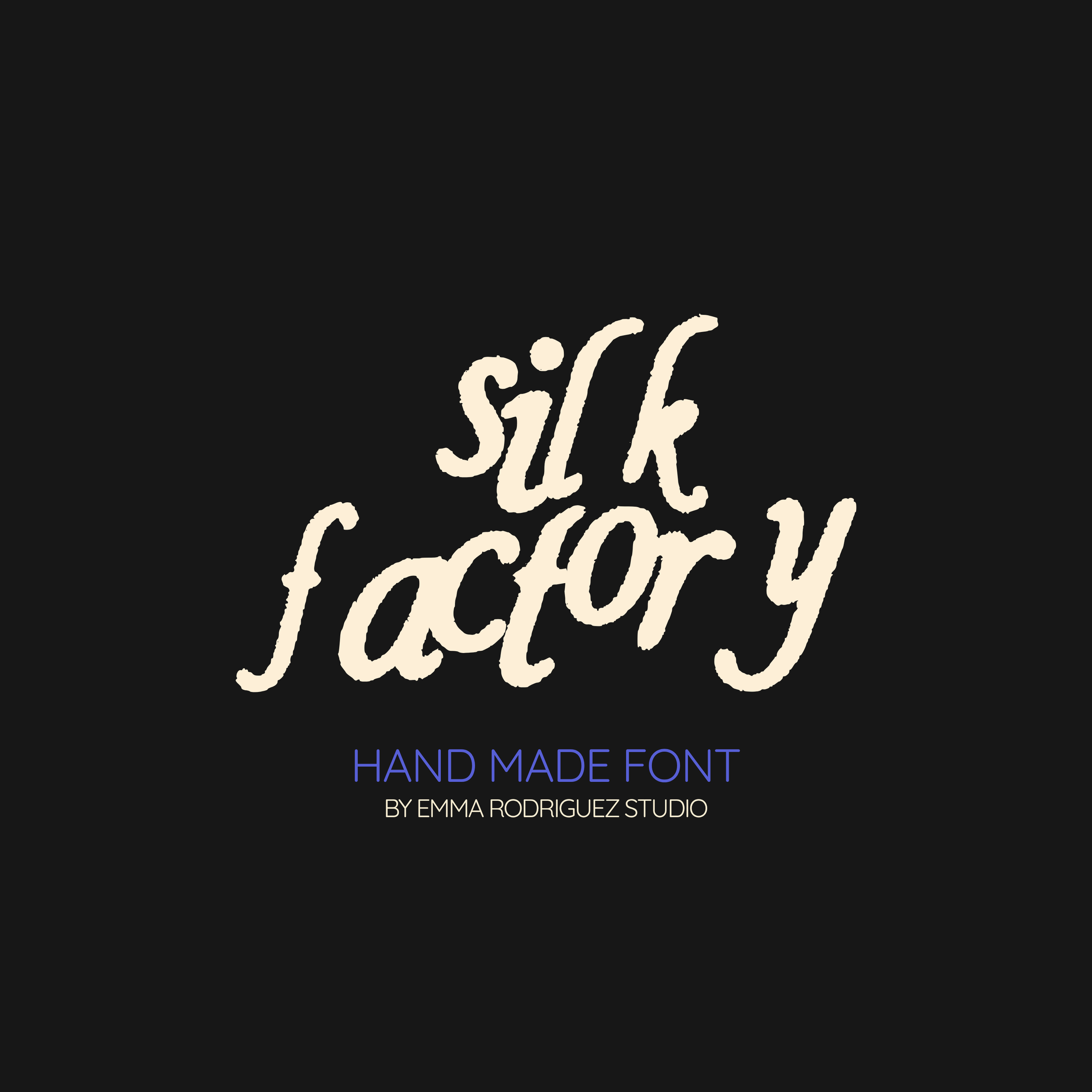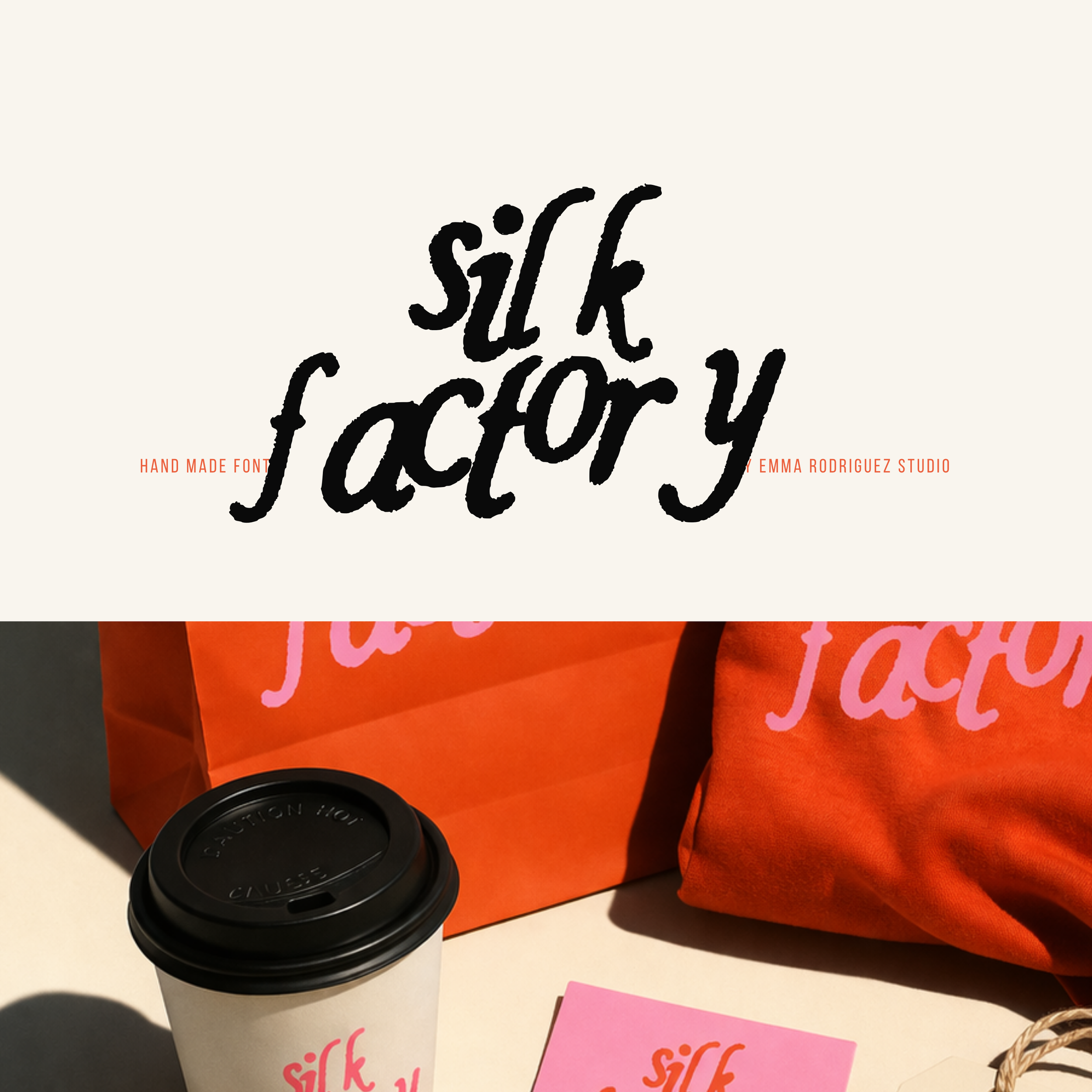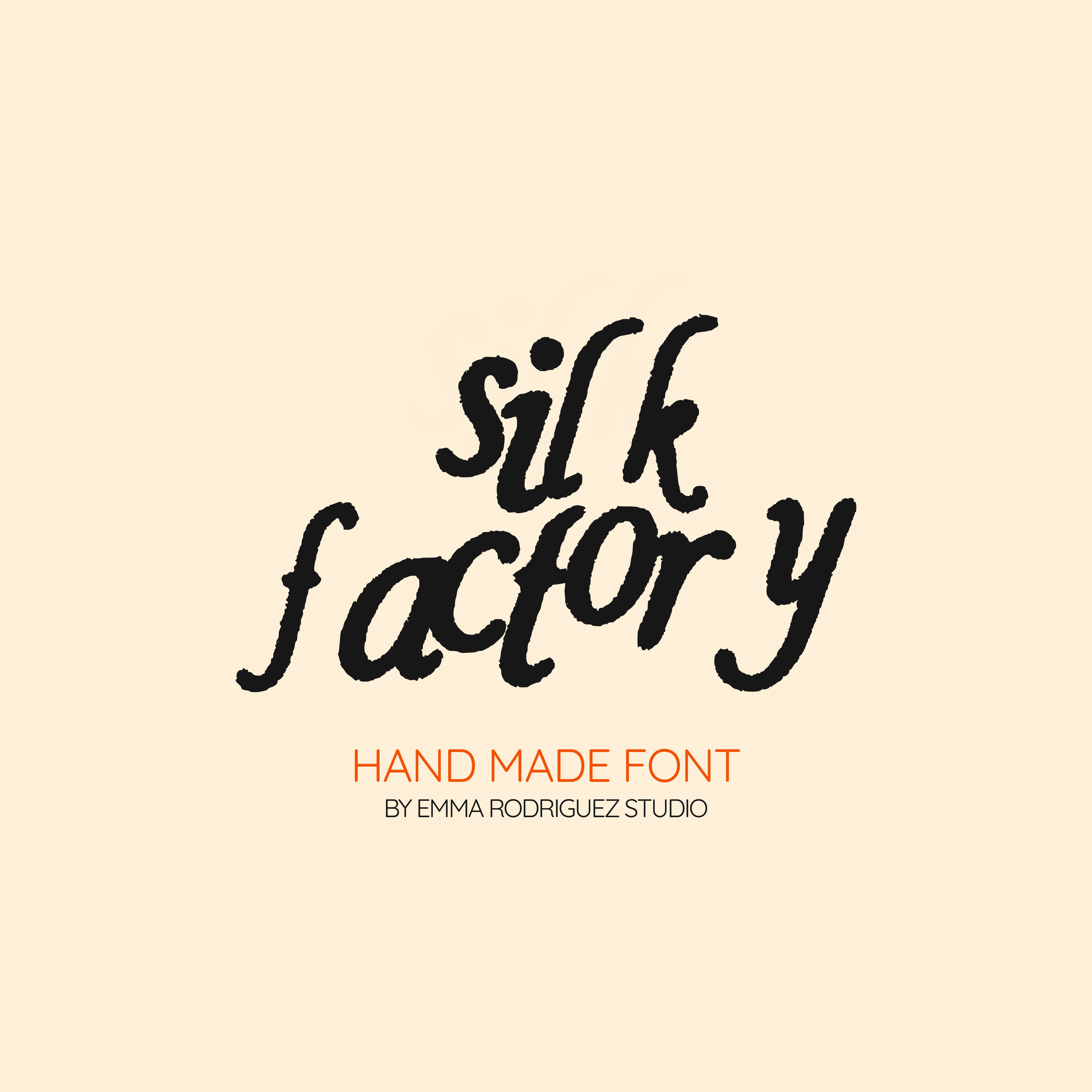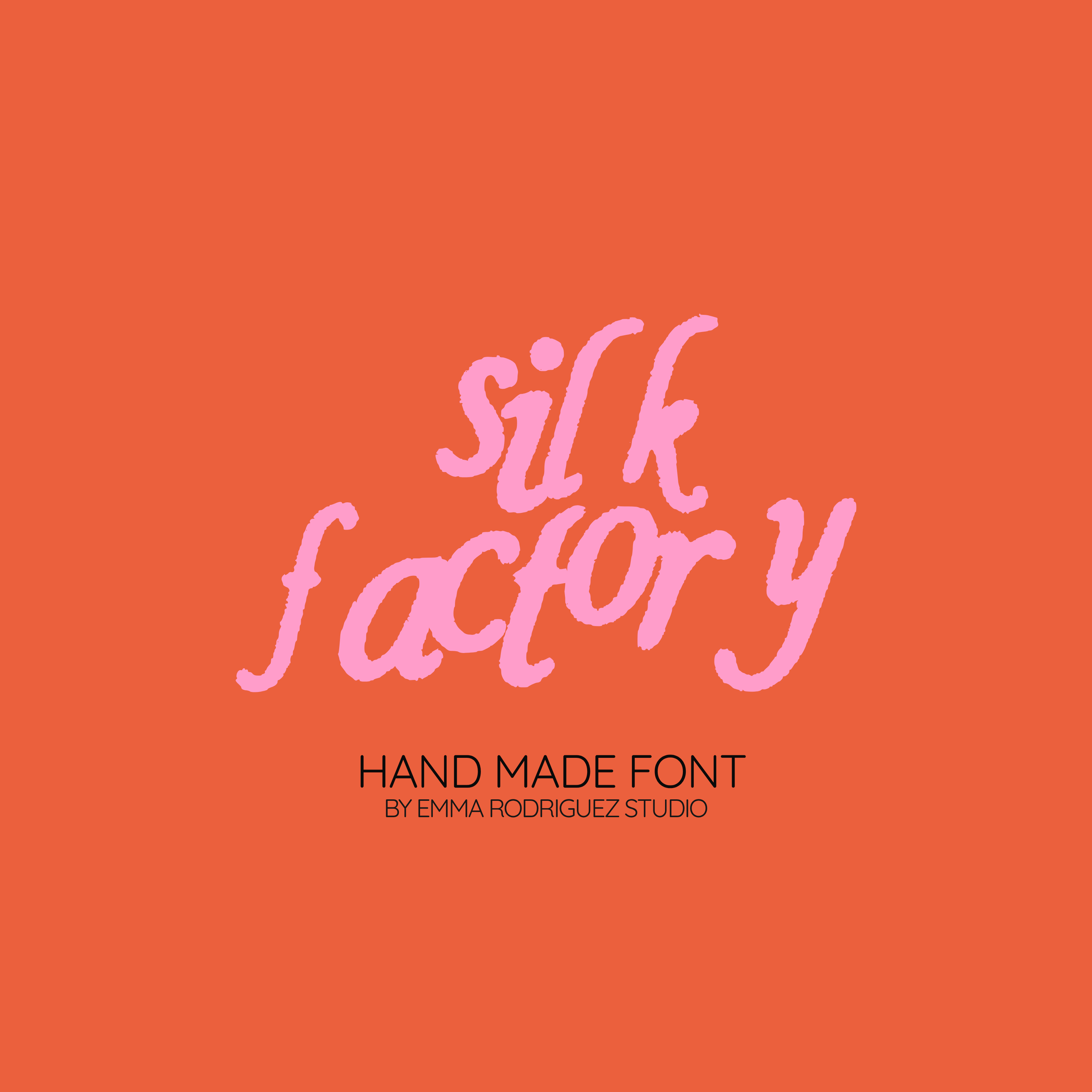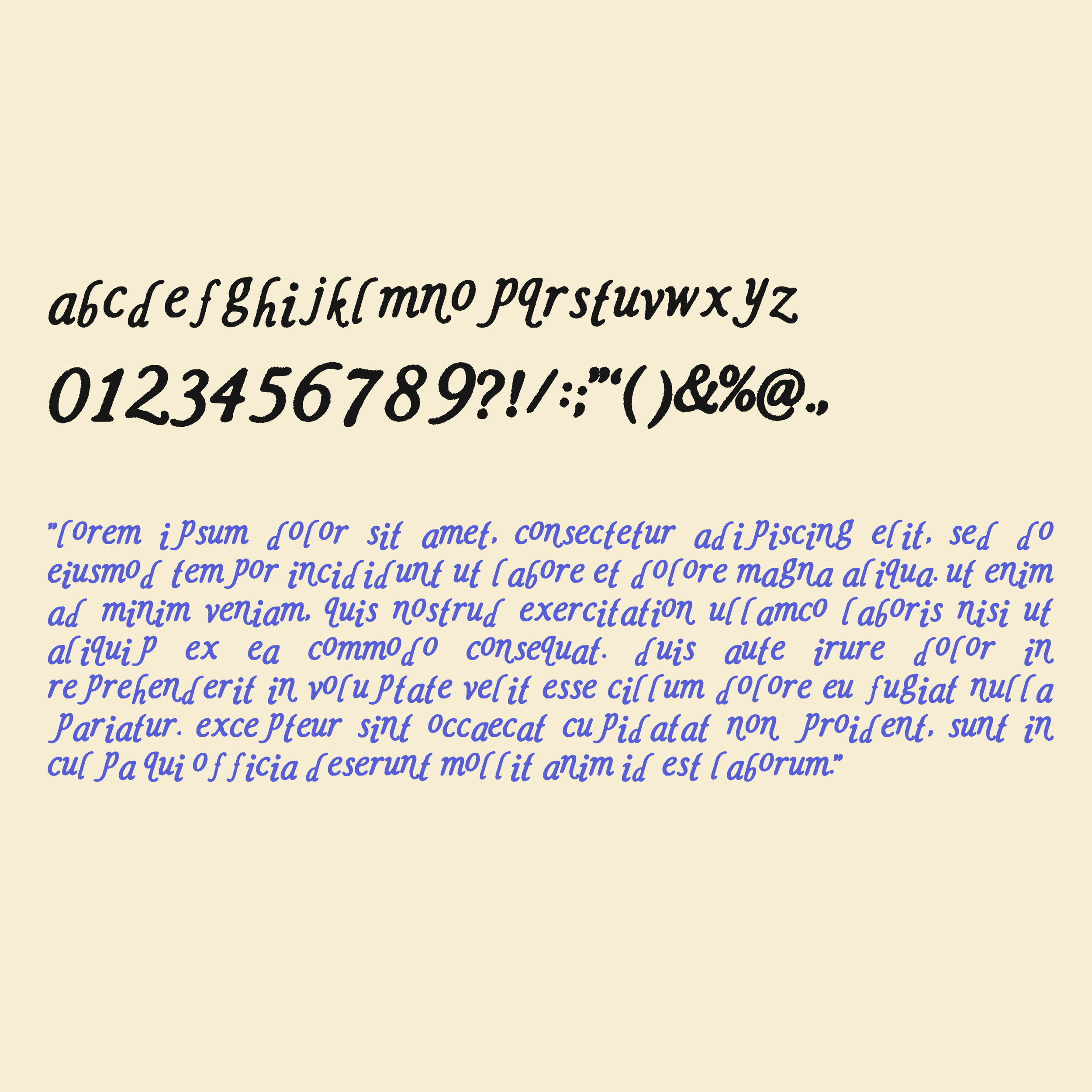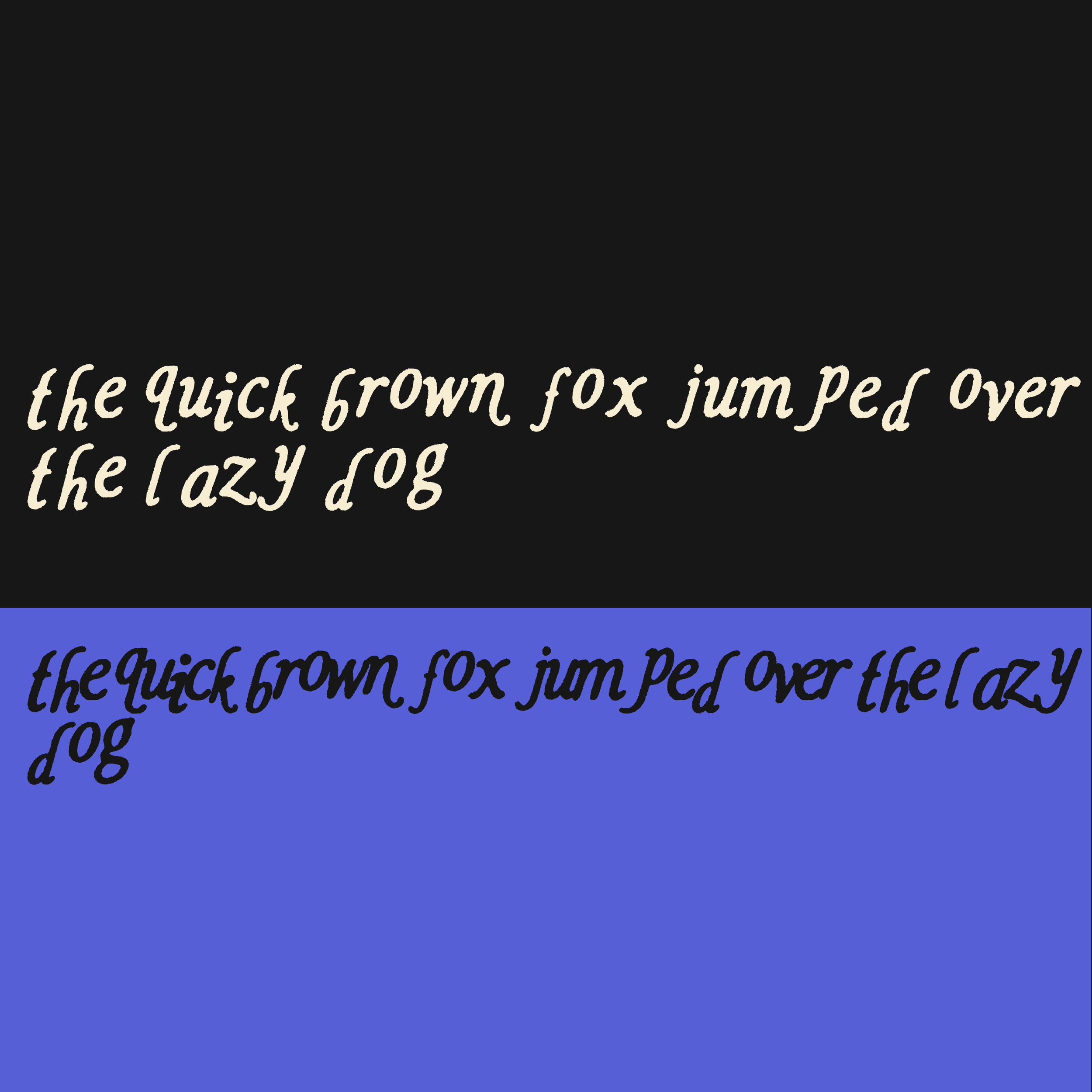
Silk Factory Font - Quirky Elegant Calligraphy Type
Meet Silk Factory, a loose, inky handwritten font that leans into expressive movement and raw texture. It takes soft script forms and roughens them just enough to feel natural, fluid, and slightly imperfect in the best way.
Still readable. Still elegant. Just more relaxed, textured, and full of character.
This lowercase typeface is built with a brush style feel, featuring subtle ink bleed, uneven edges, and natural stroke variation. The letters are intentionally unaligned to create a flowing, organic rhythm that mimics real handwriting. That inconsistency is what gives it life and personality.
Perfect when you want something expressive, relaxed, and full of charm without feeling overly polished.
• All lowercase letters
• Numbers and basic punctuation
The unaligned baseline and textured edges are intentional design choices to create a more natural, handwritten feel.
• Edgy branding
• Music artwork
• Bold posters
• Zines
• Statement quotes
• Sticker designs
• Streetwear graphics
• Digital planners with attitude